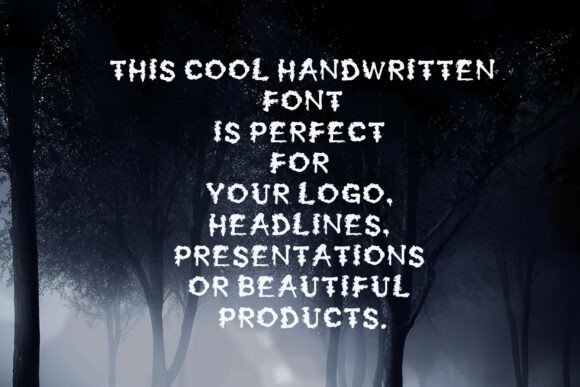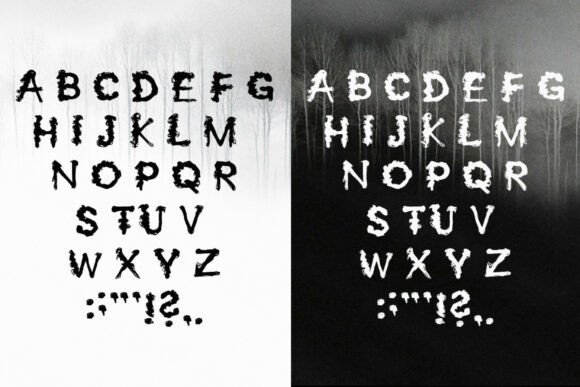
Introducing Foggi Font: The Ultimate Display Font for Bold and Edgy Designs
Are you looking for a font that can add a raw, textured look to your designs? Do you want to create titles that demand attention and exude a sense of urgency? Look no further than Foggi Font, an intense, high-impact handwritten display font that’s perfect for creating striking and slightly aggressive headlines.
The Unique Characteristics of Foggi Font
Foggi Font features uneven, distressed edges and a blotchy appearance, giving it a unique and rugged look that’s reminiscent of ink or paint that’s been applied quickly or left to bleed on paper. This erratic, bold structure gives the text a sense of chaos and urgency, making it perfect for designs that need to grab attention.
With Foggi Font, you can add a dark, textured aesthetic to your designs, making it ideal for creating horror movie titles, edgy event posters, aggressive sports graphics, grunge music branding, and any visual that demands a bold and edgy look.
What Makes Foggi Font Stand Out
Foggi Font is not just another display font – it’s a tool that can help you inject a genuine sense of mood and urgency into your headline typography. Its immediate, high-quality texture makes it an essential asset for designers who want to create bold and attention-grabbing designs.
Whether you’re a designer, craftsperson, or DIY enthusiast, Foggi Font is the perfect choice for anyone who wants to add a touch of edginess to their designs. Its versatility and flexibility make it suitable for a wide range of applications, from print materials to digital designs.
Foggi Font is a versatile font that can be used in a variety of design applications, including:
- Horror movie titles: Create terrifying titles that will leave your audience on the edge of their seats.
- Edgy event posters: Design bold and attention-grabbing posters that will make your event stand out.
- Aggressive sports graphics: Add a bold and edgy touch to your sports graphics, perfect for teams or events that want to exude a sense of intensity.
- Grunge music branding: Create a bold and edgy brand identity for your music label or band.
- Dark and textured aesthetic: Add a raw, textured look to your designs, perfect for creating a moody and atmospheric effect.
Why Choose Foggi Font?
So why choose Foggi Font over other display fonts? Here are just a few reasons:
- Unique and rugged look: Foggi Font features a unique and rugged look that’s unlike any other font.
- High-quality texture: The font’s immediate, high-quality texture makes it perfect for creating bold and attention-grabbing designs.
- Versatility: Foggi Font is versatile and flexible, making it suitable for a wide range of design applications.
In conclusion, Foggi Font is the ultimate display font for bold and edgy designs. Its unique and rugged look, high-quality texture, and versatility make it perfect for creating striking and attention-grabbing headlines. Whether you’re a designer, craftsperson, or DIY enthusiast, Foggi Font is the perfect choice for anyone who wants to add a touch of edginess to their designs.